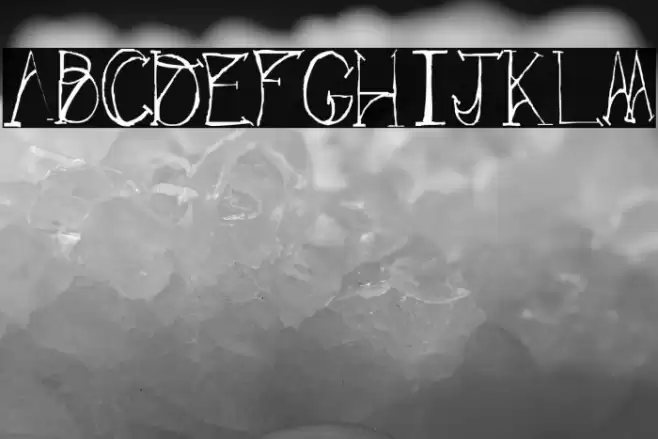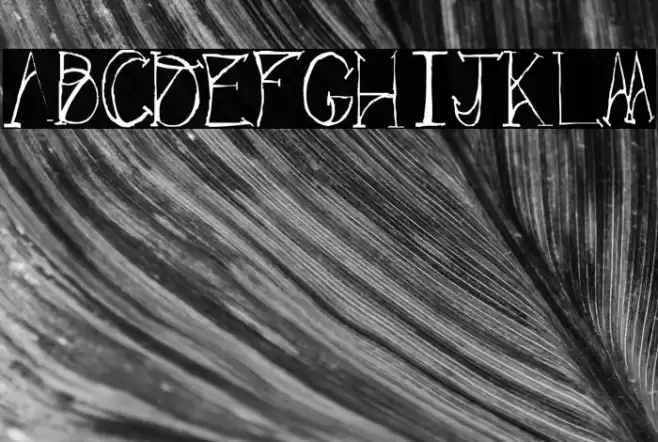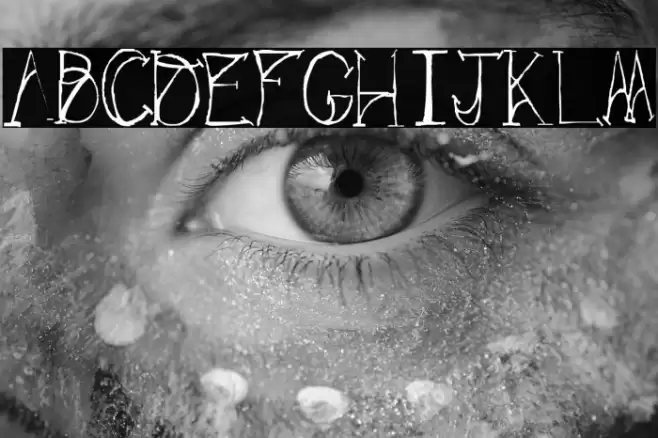
Wave Font
Wave Description
This font features a whimsical and artistic design, characterized by its irregular and playful strokes. The uppercase letters exhibit a unique blend of sharp angles and curves, giving them a dynamic and lively appearance. The lowercase letters maintain a similar style, with some characters having exaggerated loops and swirls. Numbers are crafted with a quirky touch, adding to the overall playful aesthetic. Special characters are creatively designed, enhancing the font's artistic flair. This font is perfect for projects that require a fun and imaginative touch, such as children's books, creative posters, or artistic branding.
A whimsical and artistic font with playful, irregular strokes and dynamic characters from Uncategorized fonts.
- Font: Wave
- Proposed Projects: Ideal for children's books, creative posters, artistic branding, and playful designs.
- Overall Style: Whimsical, Artistic
- Use Case: Headlines, Creative projects, Artistic branding